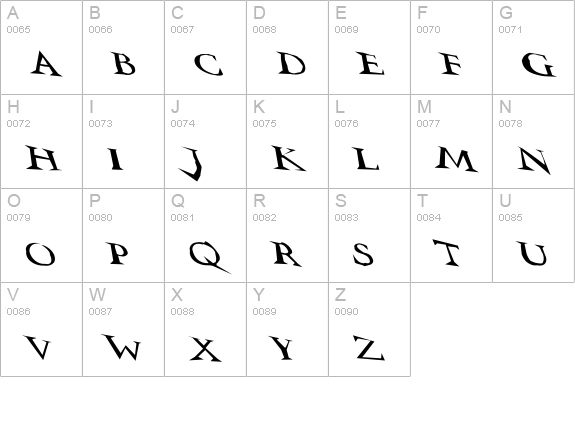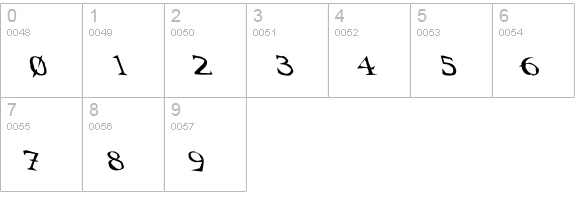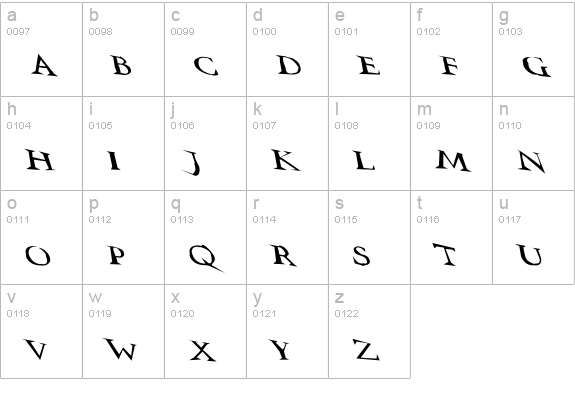
VTCSwitchbladeRomanceSloppyDrunk Font Details
VTCSwitchbladeRomanceSloppyDrunk is a unique and edgy font that captures the essence of wild adventures and untamed passion. Its bold and daring design, with its uneven strokes and playful curves, exudes a sense of rebelliousness and excitement. This font is perfect for projects that require a touch of raw energy, whether it be for posters, album covers, or event invitations. What sets VTCSwitchbladeRomanceSloppyDrunk apart is not only its striking appearance but also the fact that it is freely available to download at FontsMarket.com. This means that anyone can access this font without having to pay a single penny. It is a font that breaks free from the constraints of financial barriers, allowing creativity to flow without restrictions. With VTCSwitchbladeRomanceSloppyDrunk, you can add a touch of unconventional charm to your designs. Its imperfect and slightly messy look adds character and personality, making it stand out from the crowd. Whether you are looking to create a grungy and rebellious vibe or simply want to add a touch of uniqueness to your work, this font has got you covered. So, unleash your creativity and download VTCSwitchbladeRomanceSloppyDrunk for free at FontsMarket.com. Embrace the freedom of expression and let this font guide you on a journey of artistic exploration. Let your designs make a statement and leave a lasting impact with the bold and charismatic presence of VTCSwitchbladeRomanceSloppyDrunk.